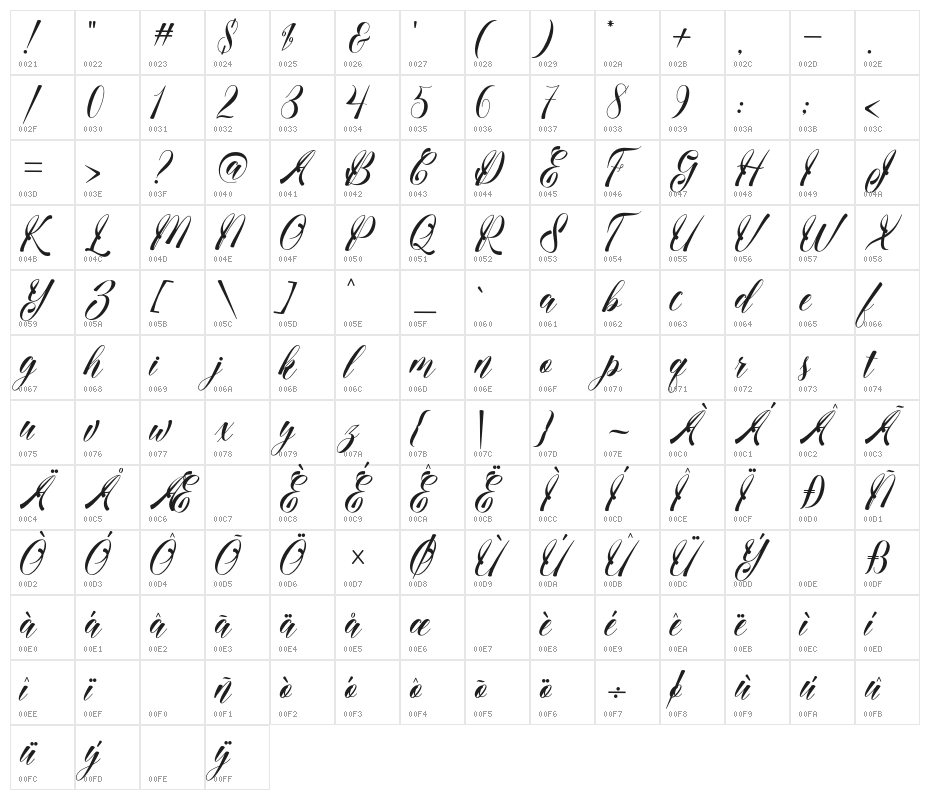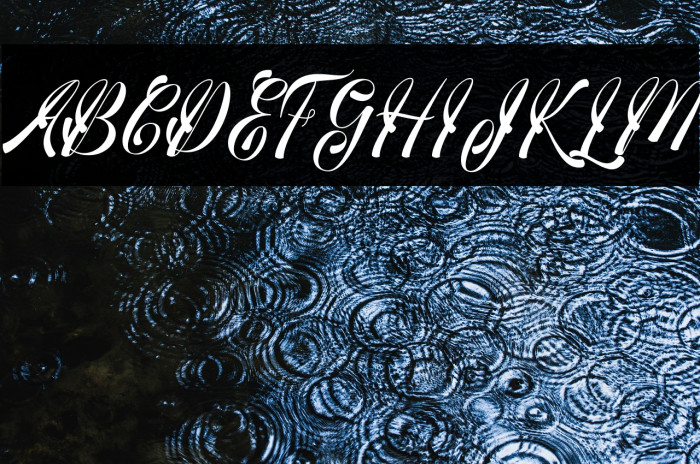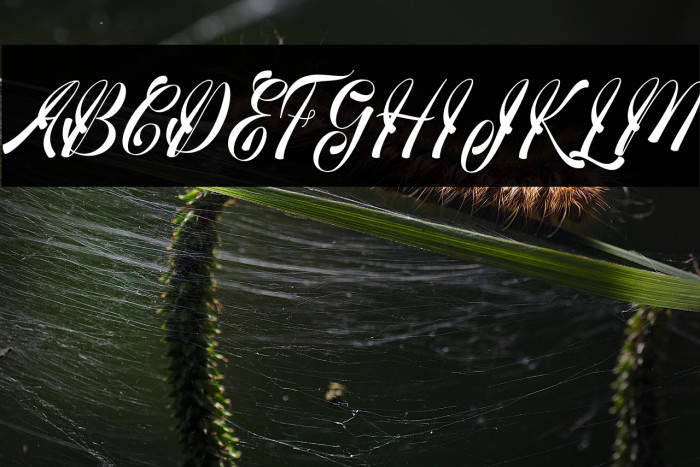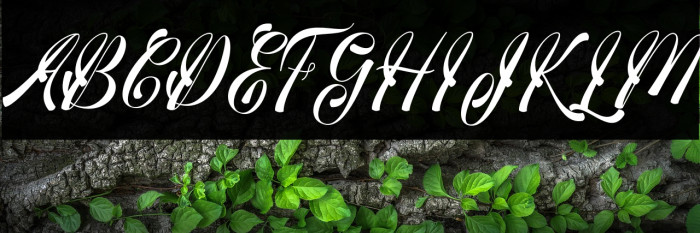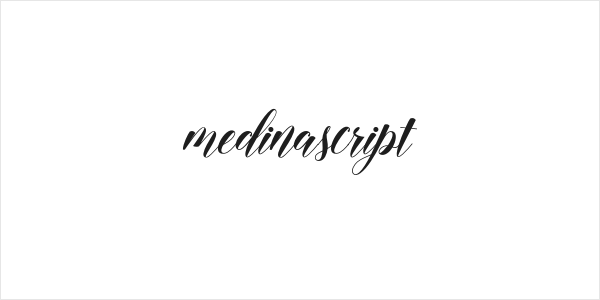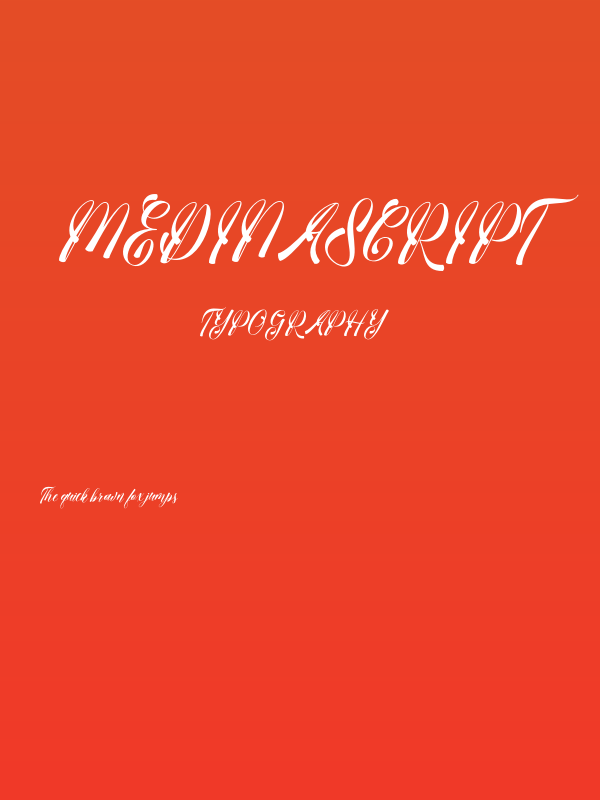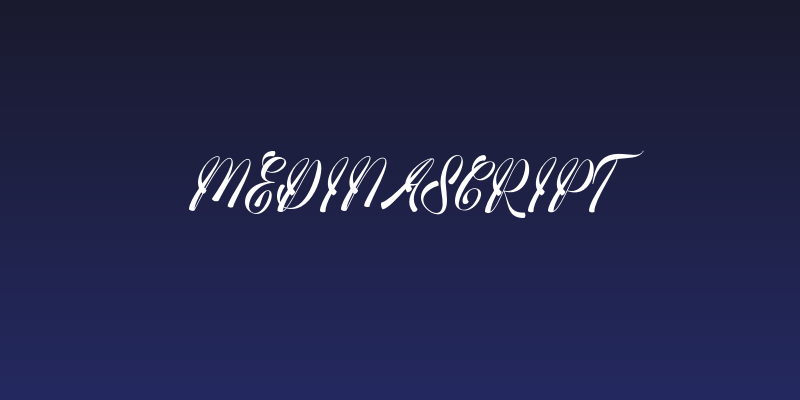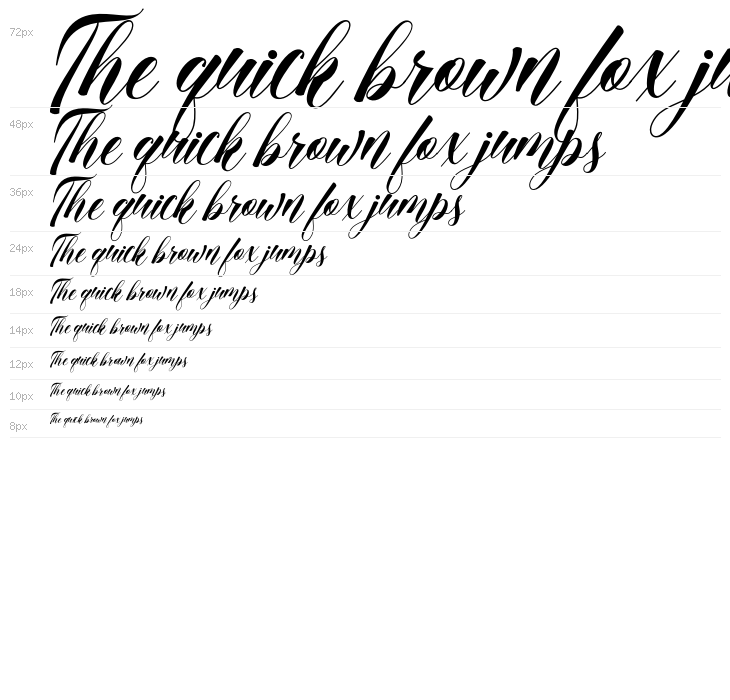
medinascript Font
medinascript Description
This elegant script font features a flowing, cursive style with high contrast between thick and thin strokes. The uppercase letters are ornate, with sweeping curves and loops that add a sense of movement and grace. The lowercase letters maintain a consistent style, complementing the uppercase with their own fluidity and charm. Numbers and special characters are designed with the same attention to detail, ensuring a cohesive look across all elements. This font exudes sophistication and is perfect for projects that require a touch of elegance and flair.
| Overall Style | Elegant |
| Use Case | Headlines, Invitations, Branding |
| Proposed Projects | Ideal for wedding invitations, luxury branding, elegant stationery, and decorative headlines. |